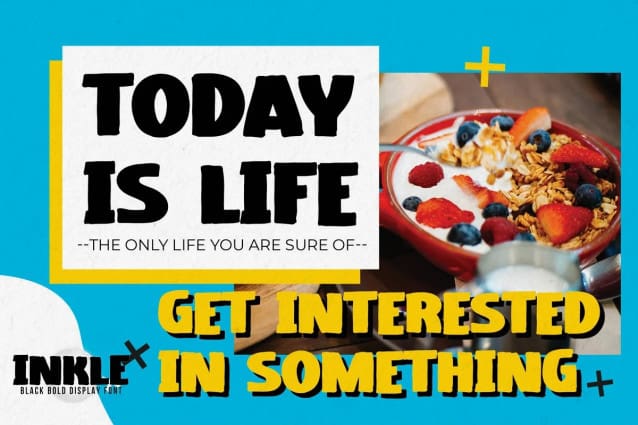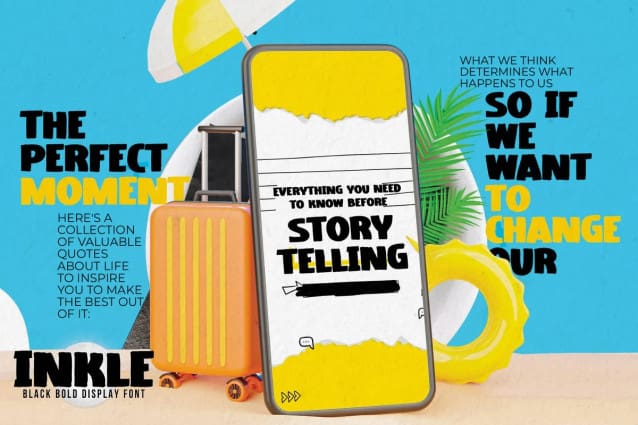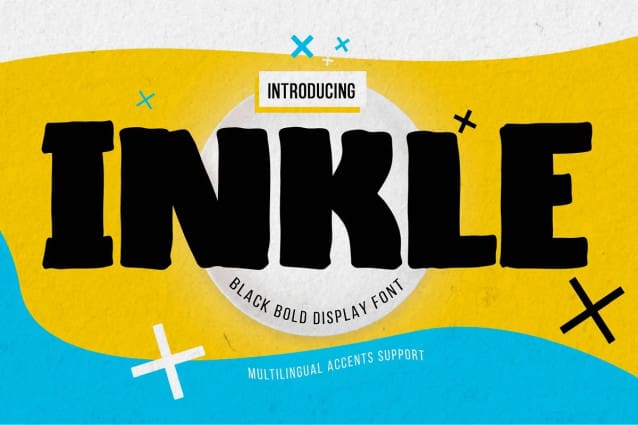
Inkle Display Font
Inkle Display Font is Black Bold Display Font this is strong Font, that is written casually and quickly amazing. Then crafted carefully drawn into vector format. This font is great for your next creative project such as logos, printed quotes, invitations, cards, product packaging, headers, Logotype, Letterhead, Poster, Label, and etc.
That is Font Inkle Display Font has Stylish, Cool and Unique characteristic more natural look to your text with a more modern look to your text.